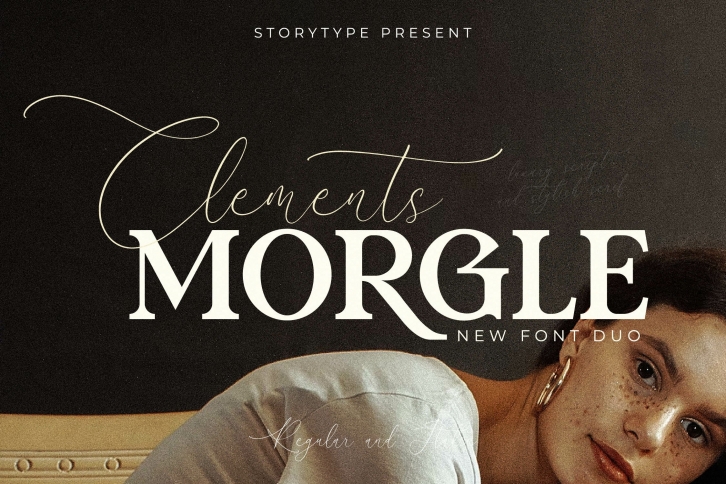
Clements Morgle is a great font that was designed by Pricilia Design. Imagine the amount of combinations you can create using this font! The archive is 5.28 MB and it was released on November 11, 2022. Clements Morgle looks beautiful on wedding invitations, greeting cards, logos, posters, labels, t-shirt designs, logos, business cards and is perfect for use in ink or watercolor works, fashion, magazines, packaging and food menus, children's books and more!